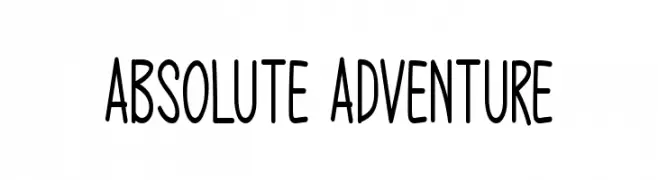
Kruti Dev 010 Font
A structured and clear Devanagari script font ideal for Hindi typing.
DevLys 010 Font
A clean and geometric Devanagari script typeface with consistent stroke widths.
CorelDraw Font
Font by weknow - Wino S Kadir
A modern, geometric font with a futuristic and sleek design.
Kruti Dev 040 Wide Font
A bold and wide Devanagari script with clear, consistent letterforms.
GurmukhiLys 020 Font
A modern Gurmukhi script font with clear, balanced strokes and comprehensive character support.
Kruti Dev 100 Font
A traditional Devanagari script font with moderate contrast and condensed spacing.
Digital iPhone Bold Font
A segmented, digital-style font inspired by classic LED displays.
AdarshaLipiNormal Font
A classic Bengali script font with elegant curves and moderate contrast.
a Theme for murder Font
Font by Christopher Hansen
A dramatic, expressive font with sharp, elongated strokes and a dynamic flow.
GurmukhiLys 020 Wide Font
A modern Gurmukhi script font with clear, legible characters and moderate stroke contrast.
Steel Tongs Font
A bold, condensed font with a modern and structured appearance.
Spider-Man Font
A bold, narrow font with sharp angles, ideal for dynamic and modern designs.
Marbold Normal Font
A bold, geometric font with sharp edges and a modern style.
Grammara Normal Font
A bold, modern font with a geometric structure and strong visual impact.
Alfaowner Script Bold Italic Font
A bold, italic script font with elegant, flowing letterforms.
Amar Nastaleeq Font
Font by
amarfayaz
A modern, clean sans-serif font with geometric shapes and uniform strokes.
G-Unit Font
An elegant, cursive font with flowing, ornate characters.
NONAME Font